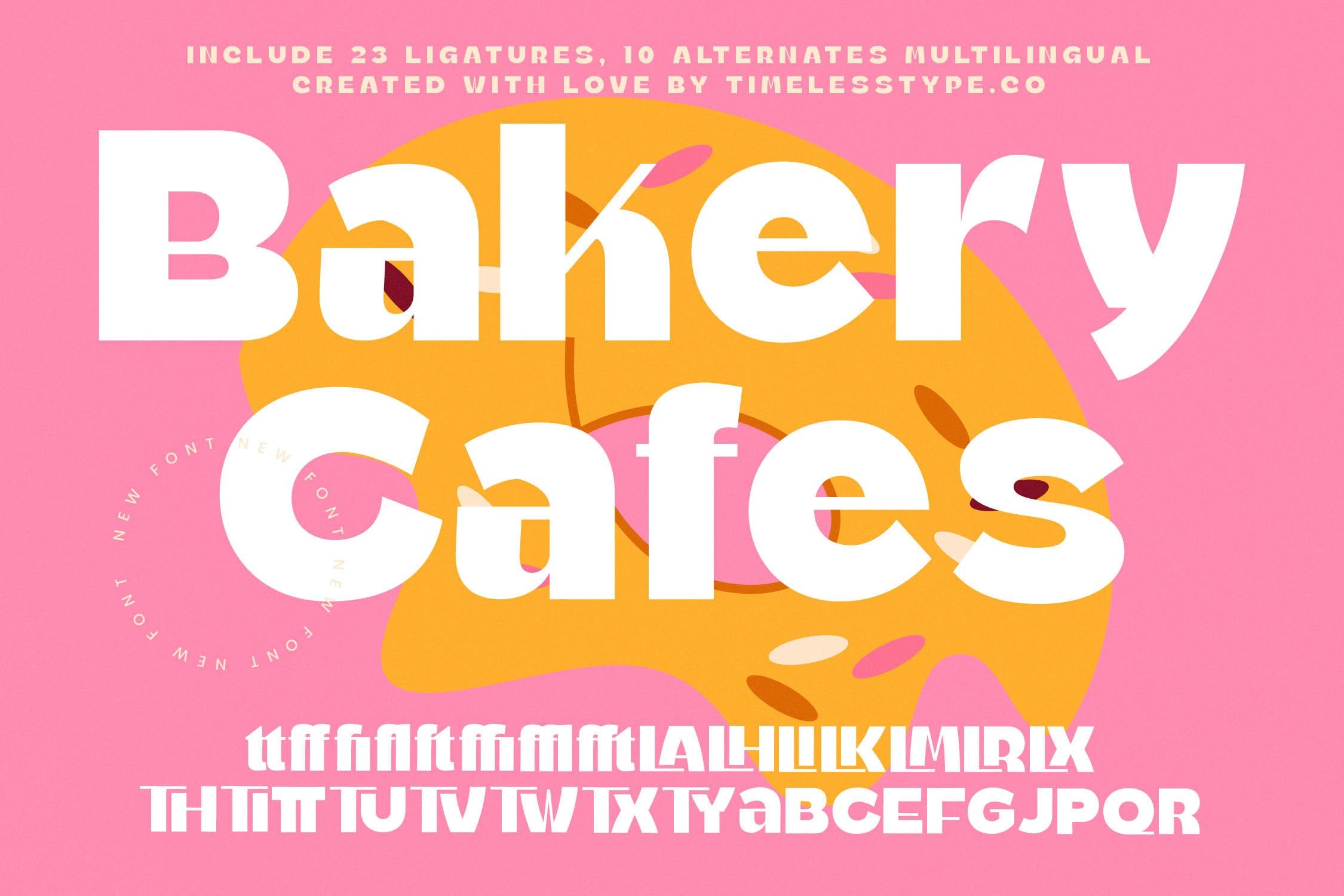
Bakery Cafes Modern Display Font
Embrace a world of sweetness and visual charm with Bakery Cafes, a font designed to make every creative project feel like a warm and inviting treat. This typeface balances a bold, confident presence with a delightful, approachable character that instantly captures the viewer's heart.
Inspired by the cozy atmosphere of local patisseries and the handcrafted art of artisanal baking, this font captures the organic curves of rising dough and the sharp precision of a pastry chef. It reflects a joyful culinary experience translated into a visual medium that speaks directly to the senses and evokes a sense of comfort.
With its heavy weight and unique letterforms, this modern serif display creates a lasting branding impact for any business. It offers a perfect blend of luxury typography and playful energy, making it an ideal editorial font for those who want their headlines to stand out with a sophisticated high-contrast serif feel.
Tapping into the current modern serif trend, this typeface is perfect for designers seeking editorial display fonts that break away from the mundane. It fits seamlessly within the wave of character-driven typography that prioritizes individuality and expressive, chunky shapes over traditional and rigid design conventions.
This versatile typeface is a powerhouse for logo design and comprehensive branding projects across the food and lifestyle industries. Whether you are working on high-end packaging, a boutique wedding invitation set, or a fresh fashion lookbook, its strong editorial quality ensures a professional and high-impact finish.
The package is fully loaded with 23 ligatures and 10 alternates to give your designs a custom, handcrafted feel that feels truly bespoke. It also includes comprehensive multilingual support and international characters, allowing you to communicate your brand's story to a global audience without limitations.